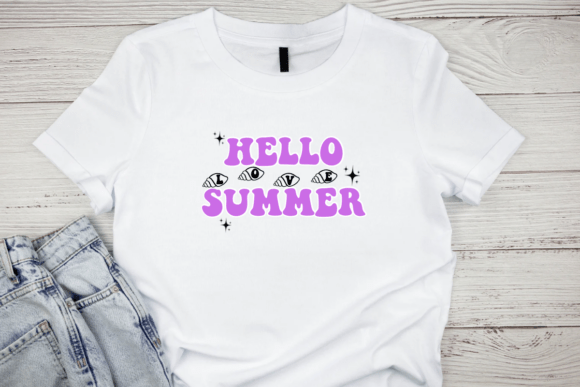
Summer Sea Shell Font: A Whimsical and Playful Decorative Font for Your Beachside Projects
Are you looking for a font that captures the essence of beachside fun and adds a touch of seaside charm to your typography? Look no further than the Summer Sea Shell Font, a whimsical and playful decorative font that’s perfect for ocean-themed projects, kids’ materials, vacation posters, or summer merchandise.
What is Summer Sea Shell Font?
Summer Sea Shell is a unique and creative font that features stylized shell-encased characters. Each letter is carefully designed to resemble a seashell, complete with intricate details and textures that evoke the feeling of a beach vacation. The font is perfect for adding a playful and imaginative touch to your designs, and its whimsical style is sure to delight both kids and adults alike.
Key Features of Summer Sea Shell Font
- Whimsical and playful design: Each character is creatively encased in a stylized shell, making it perfect for ocean-themed projects and kids’ materials.
- Seaside charm: The font’s shell-encased characters add a touch of seaside charm to your typography, making it perfect for vacation posters, summer merchandise, and beach-themed designs.
- Decorative and eye-catching: The Summer Sea Shell Font is a decorative font that’s sure to grab attention and add visual interest to your designs.
- Imaginative and creative: The font’s unique design encourages creativity and imagination, making it perfect for kids’ materials, storytelling, and educational projects.
Uses for Summer Sea Shell Font
The Summer Sea Shell Font is a versatile font that can be used for a variety of projects, including:
- Ocean-themed projects: The font’s beachy vibe makes it perfect for ocean-themed projects, such as brochures, posters, and flyers.
- Kids’ materials: The font’s playful and imaginative design makes it perfect for kids’ materials, such as children’s books, educational resources, and activity sheets.
- Vacation posters: The font’s seaside charm makes it perfect for vacation posters, travel brochures, and summer-themed designs.
- Summer merchandise: The font’s fun and playful design makes it perfect for summer merchandise, such as t-shirts, hats, and beach towels.
Tips for Using Summer Sea Shell Font
Here are some tips for using the Summer Sea Shell Font in your designs:
- Use it for headlines and titles: The font’s decorative and eye-catching design makes it perfect for headlines and titles.
- Pair it with a simple font: Pair the Summer Sea Shell Font with a simple font for body text to create visual interest and add contrast to your design.
- Experiment with colors: The font’s beachy vibe makes it perfect for bright and bold colors, such as blues, greens, and yellows.
- Use it for kids’ projects: The font’s playful and imaginative design makes it perfect for kids’ projects, such as children’s books, activity sheets, and educational resources.
Benefits of Using Summer Sea Shell Font
Here are some benefits of using the Summer Sea Shell Font in your designs:
- Adds visual interest: The font’s decorative and eye-catching design adds visual interest to your designs and grabs attention.
- Evokes a sense of fun and playfulness: The font’s playful and imaginative design evokes a sense of fun and playfulness, making it perfect for kids’ projects and summer-themed designs.
- Creates a beachy vibe: The font’s shell-encased characters create a beachy vibe that’s perfect for ocean-themed projects and summer merchandise.
- Encourages creativity and imagination: The font’s unique design encourages creativity and imagination, making it perfect for kids’ materials and educational projects.
The Summer Sea Shell Font is a whimsical and playful decorative font that’s perfect for adding a touch of seaside charm to your typography. Its unique design, which features stylized shell-encased characters, makes it perfect for ocean-themed projects, kids’ materials, vacation posters, and summer merchandise. With its decorative and eye-catching design, the Summer Sea Shell Font is sure to grab attention and add visual interest to your designs.
- What is the Summer Sea Shell Font?: The Summer Sea Shell Font is a whimsical and playful decorative font that features stylized shell-encased characters.
- What is the font perfect for?: The font is perfect for ocean-themed projects, kids’ materials, vacation posters, and summer merchandise.
- Is the font easy to read?: The font is decorative and playful, but may not be suitable for long blocks of text. It’s best used for headlines, titles, and short paragraphs.